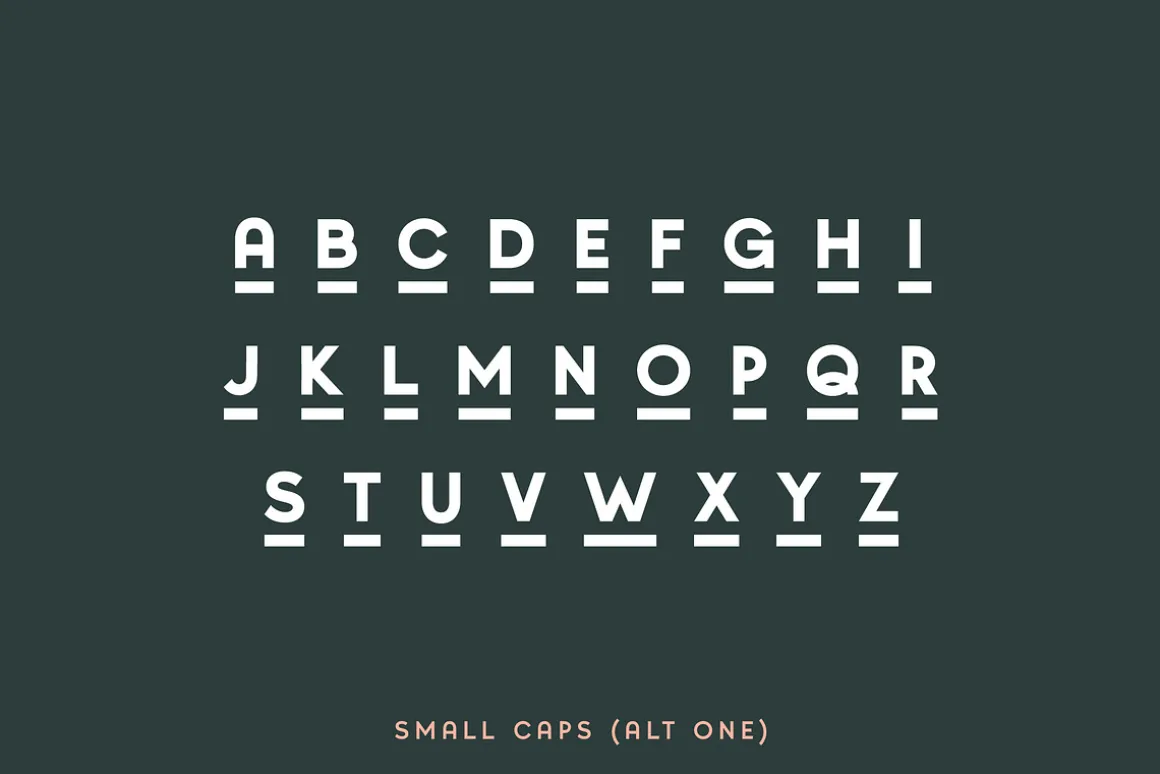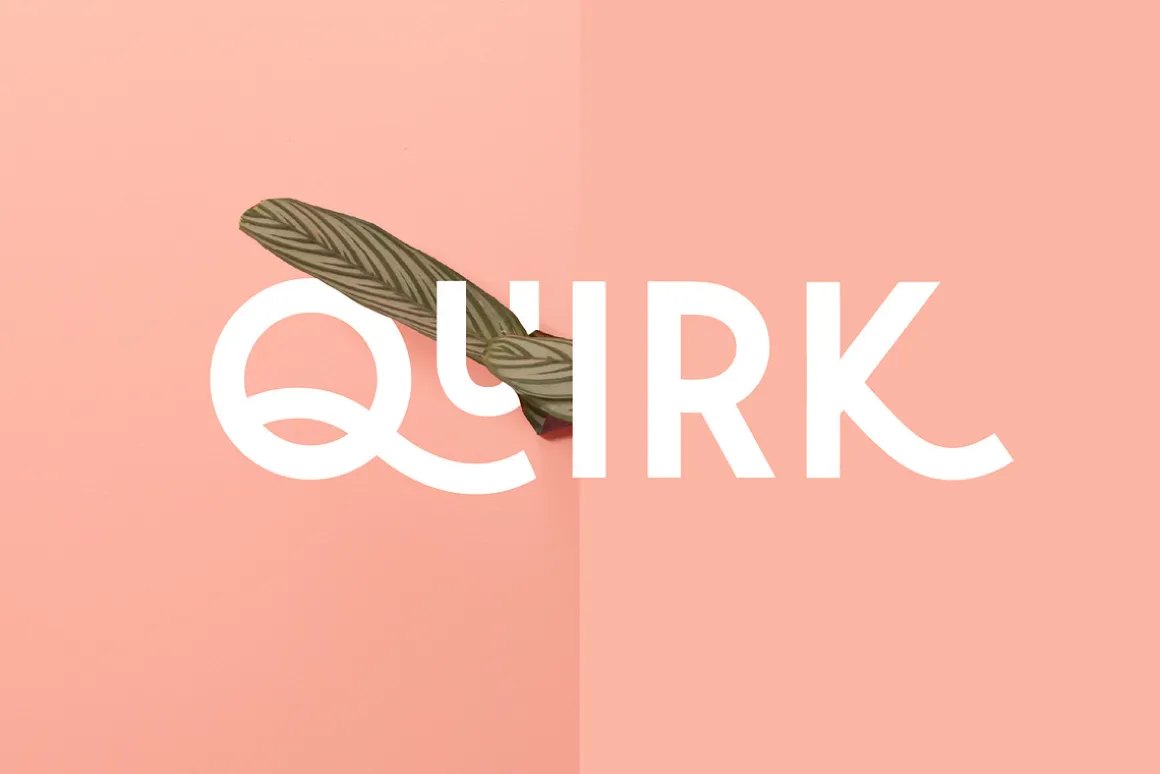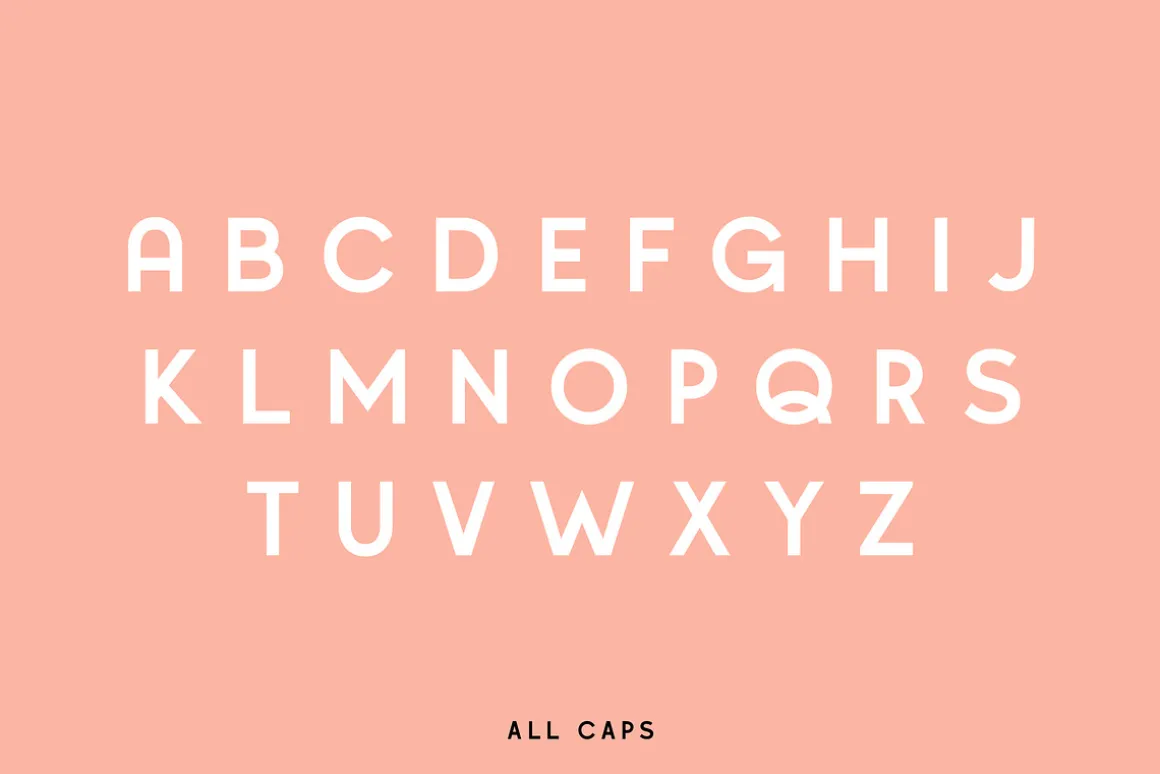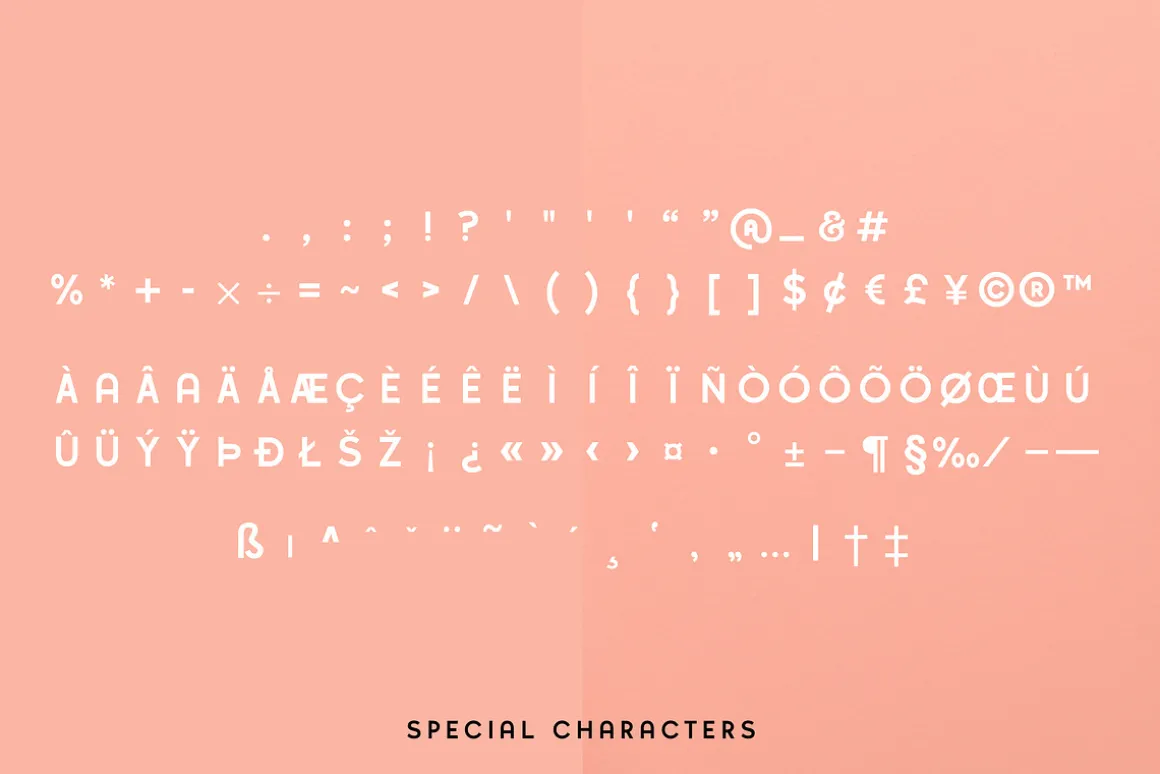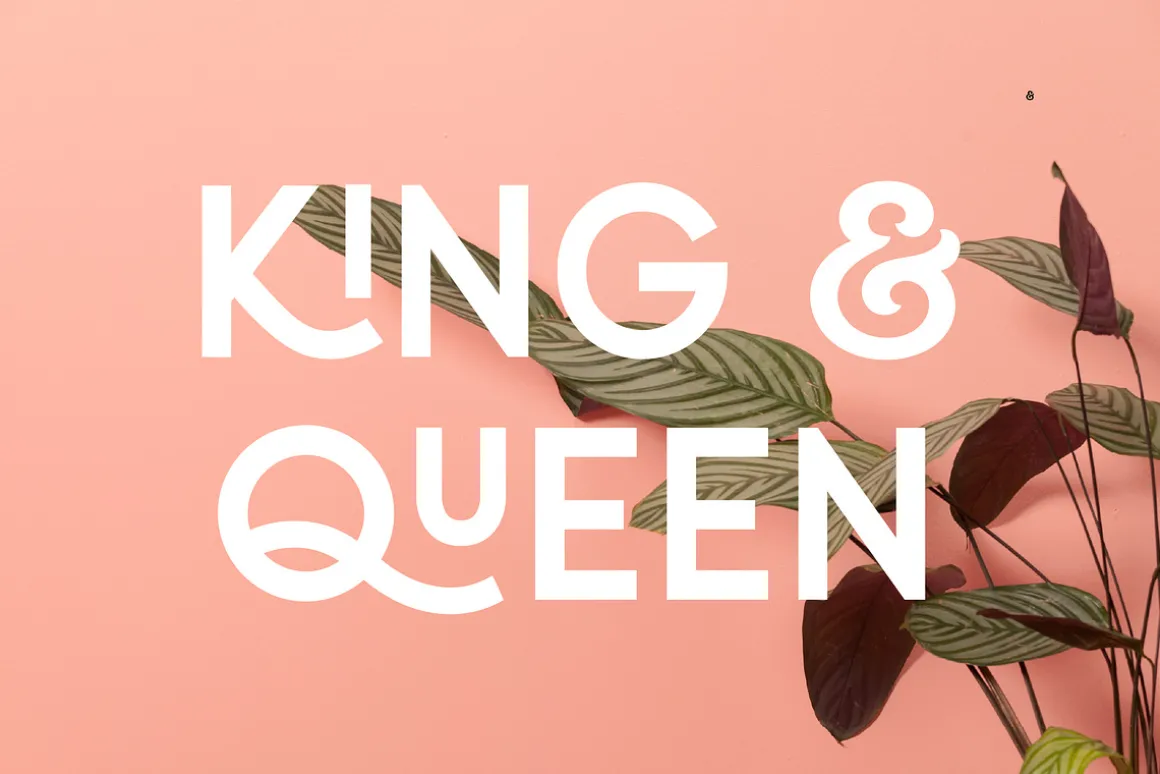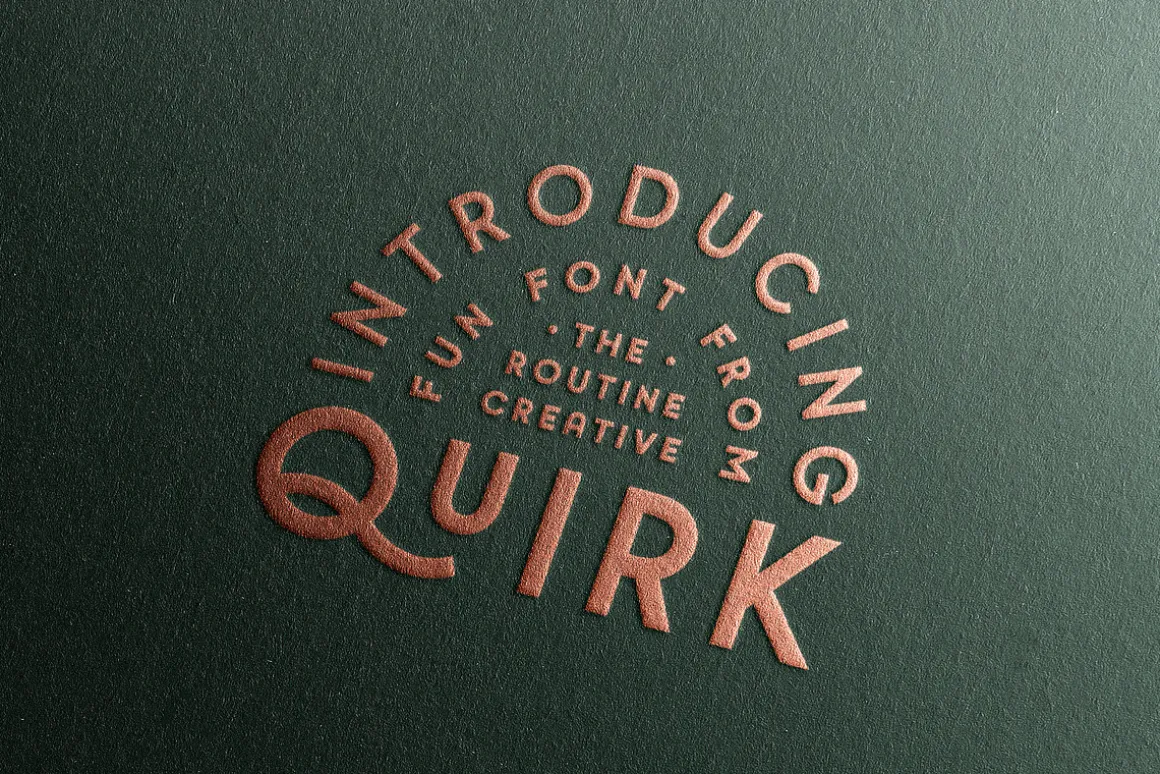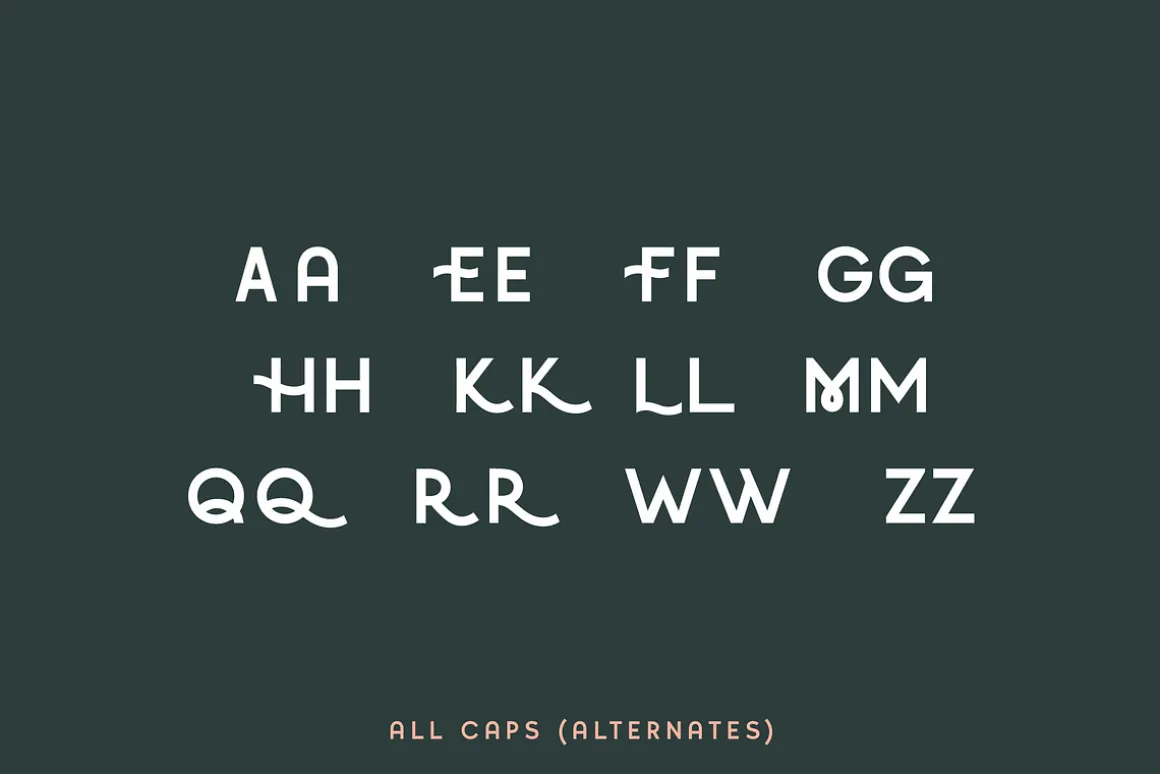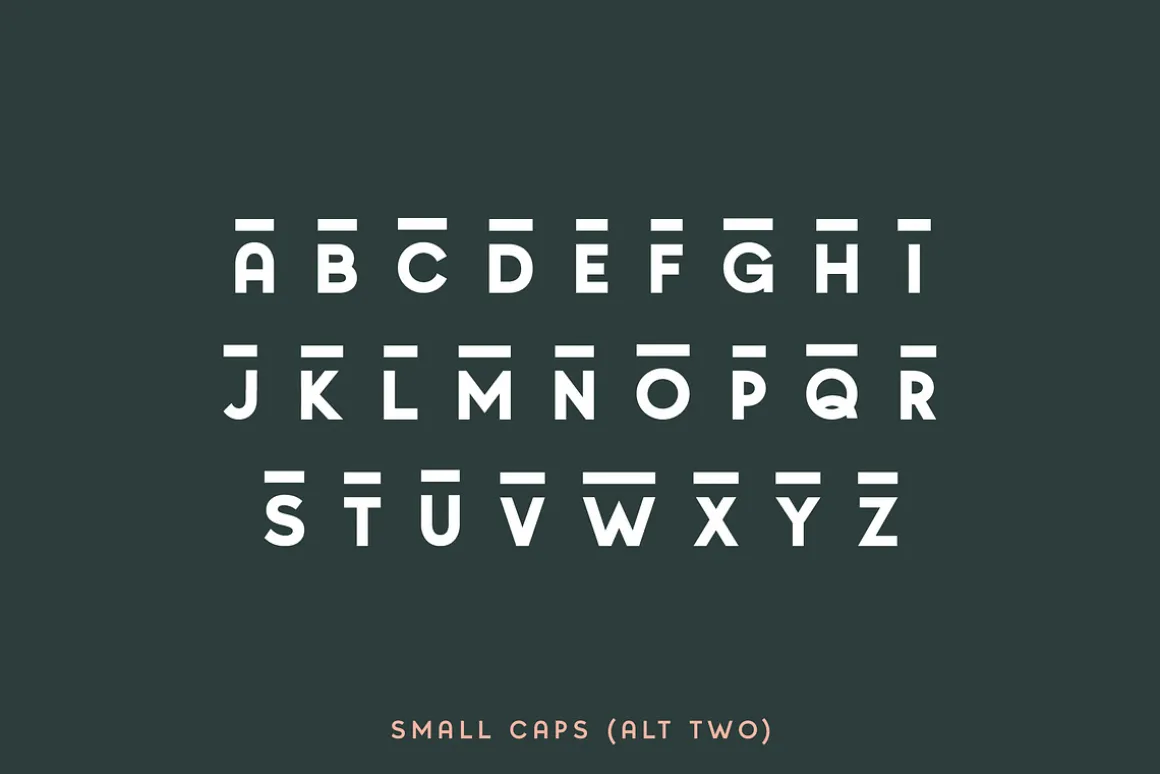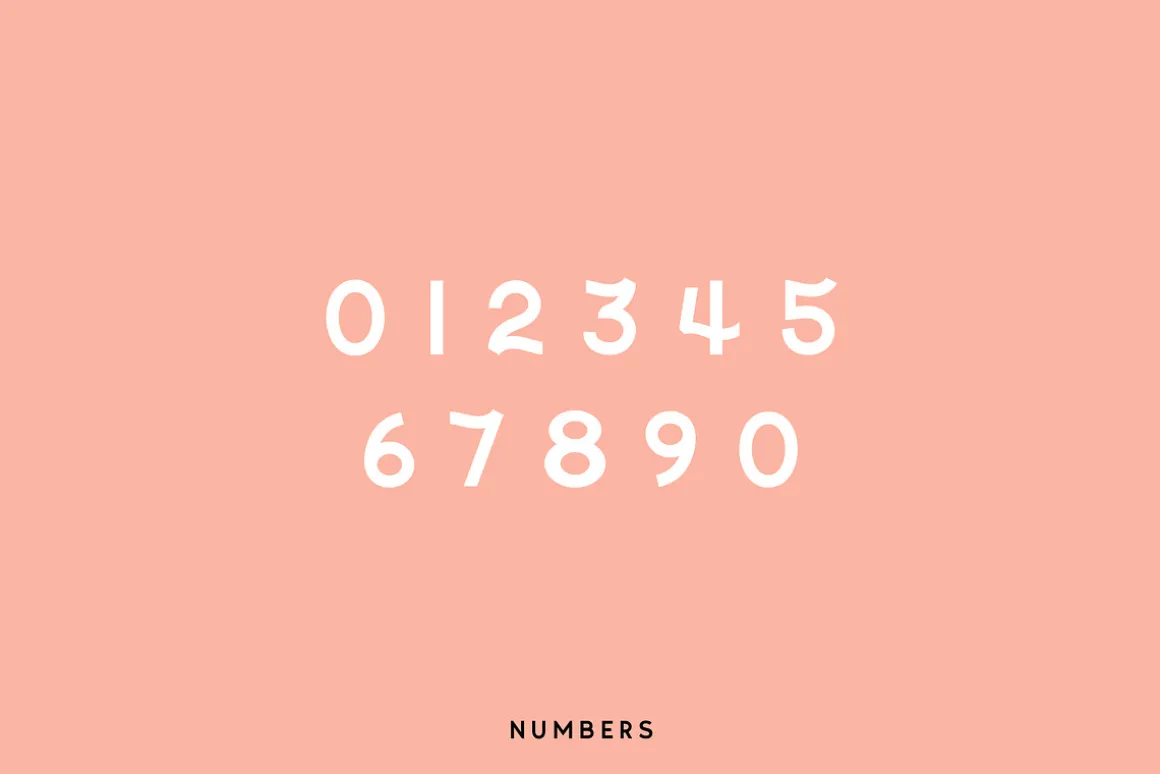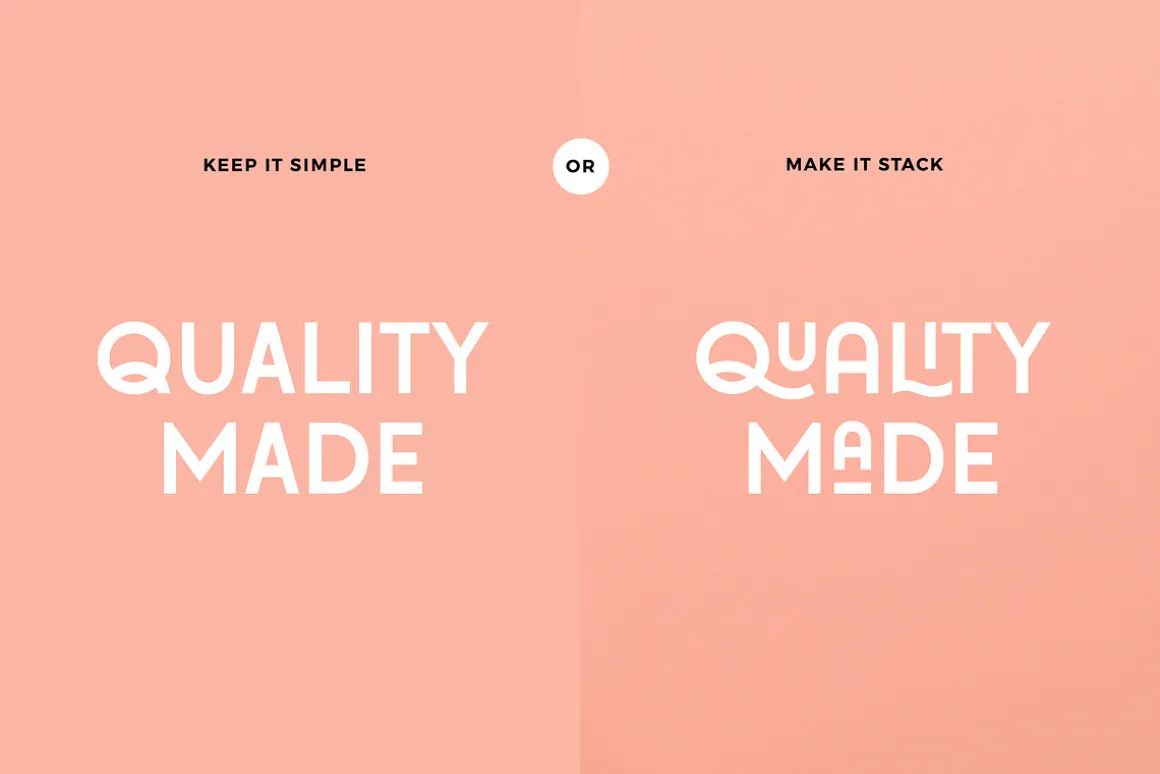
QUIRK
A fun stackable display font that lives up to its name. The way you can uniquely stack different parts of this font makes it super fun to work with! Perfect for all purposes. Pairs well with bold sans serifs.
QUIRK features:
THIS ENTIRE FONT IS CAPITALIZED
- All Caps Alternate Characters
- Small Caps Alternate Characters
- Numbers
- Special Characters